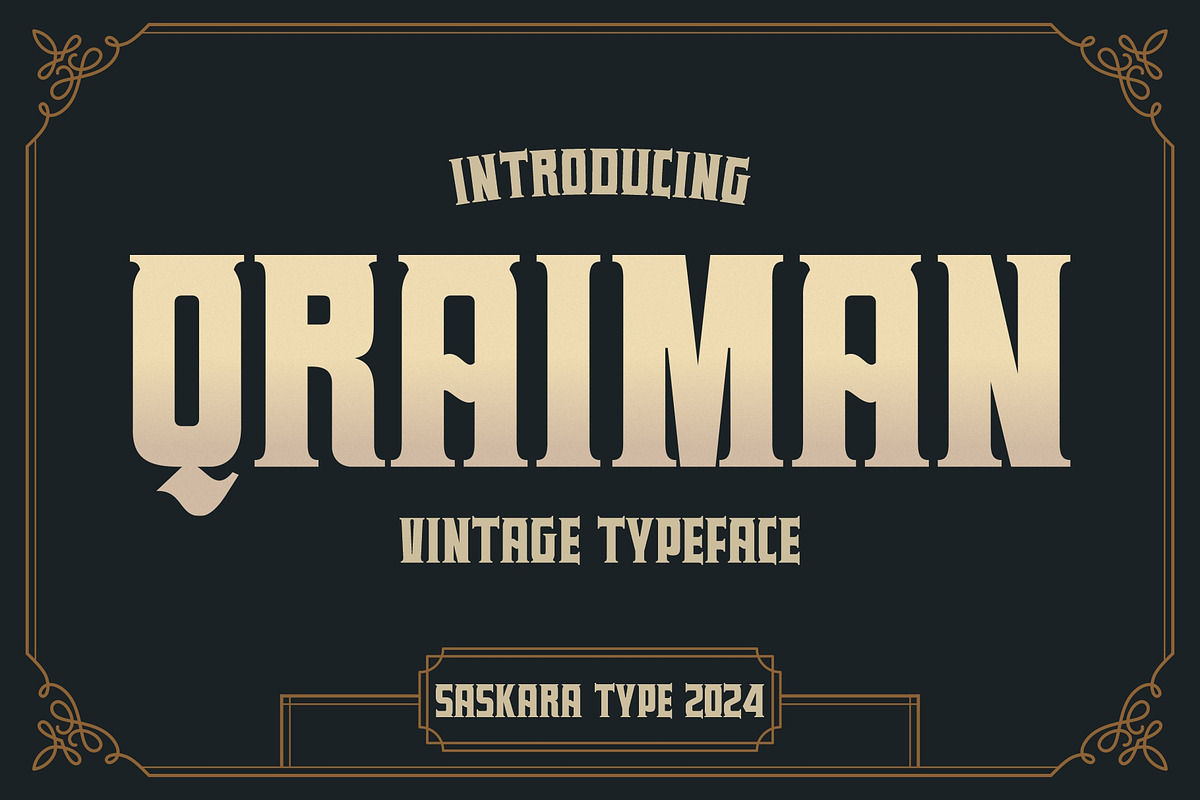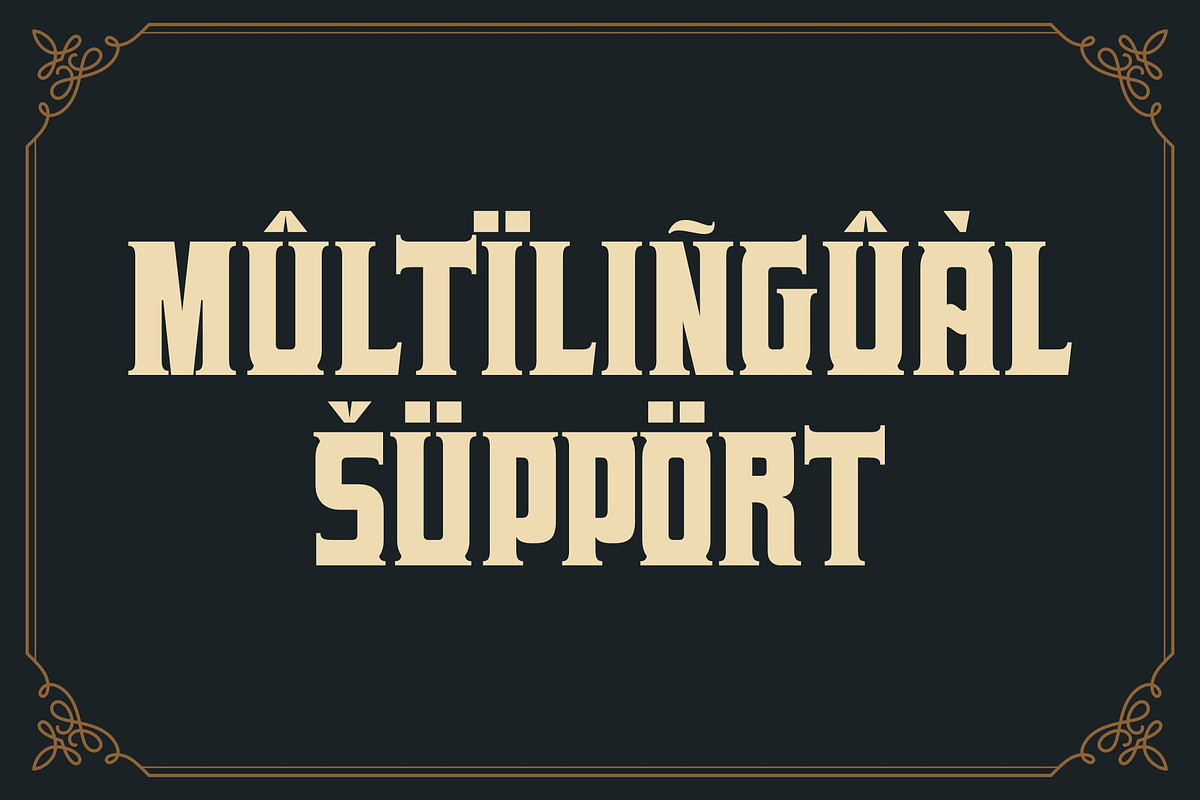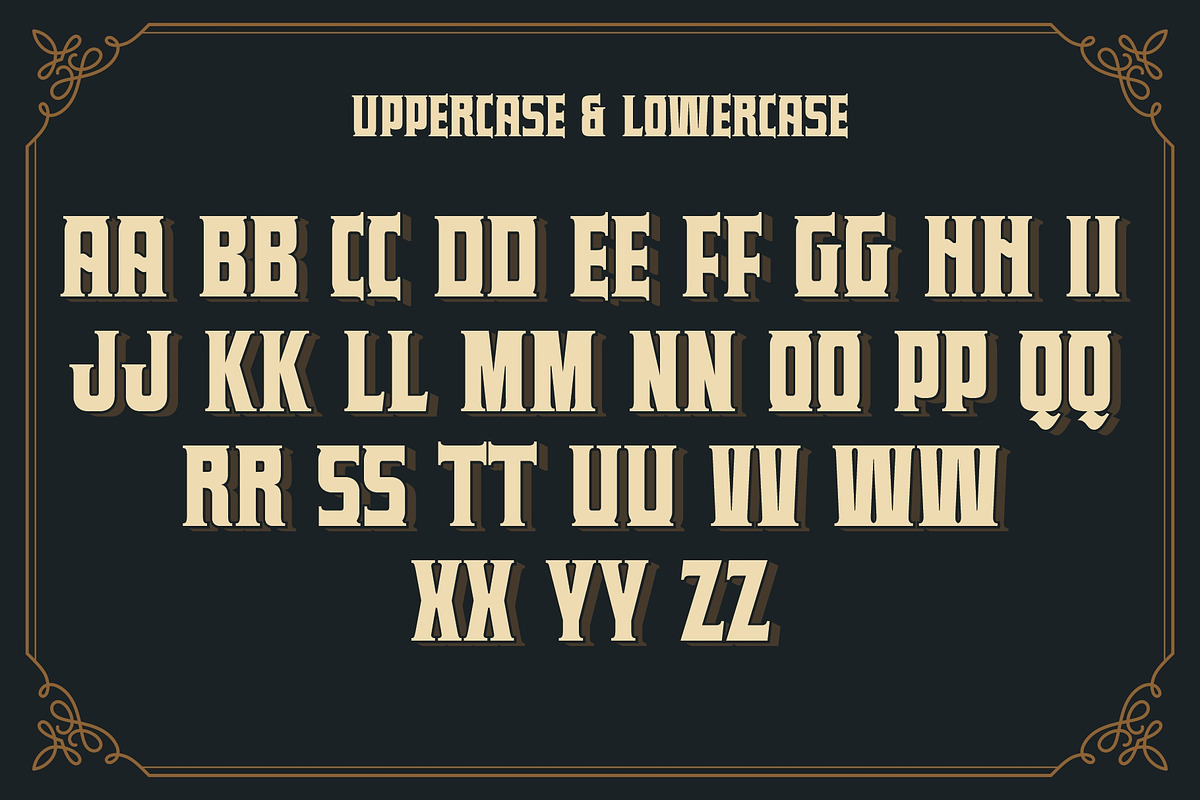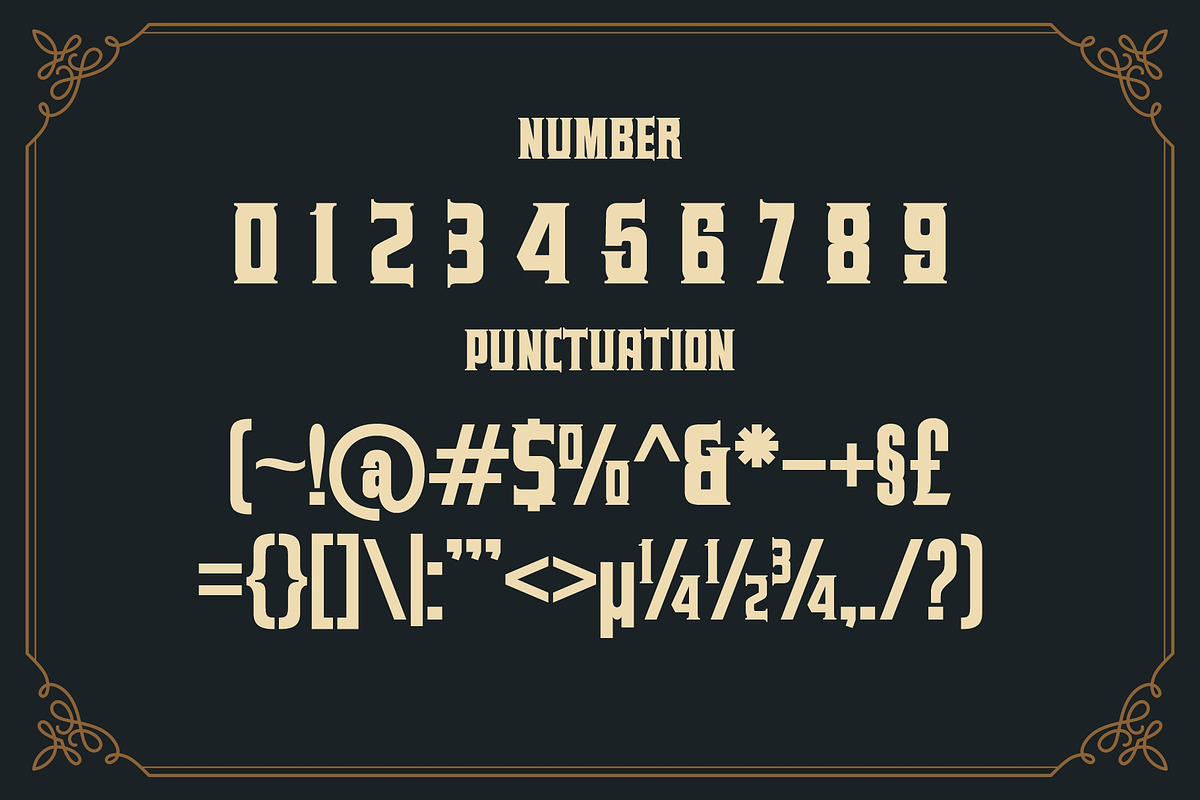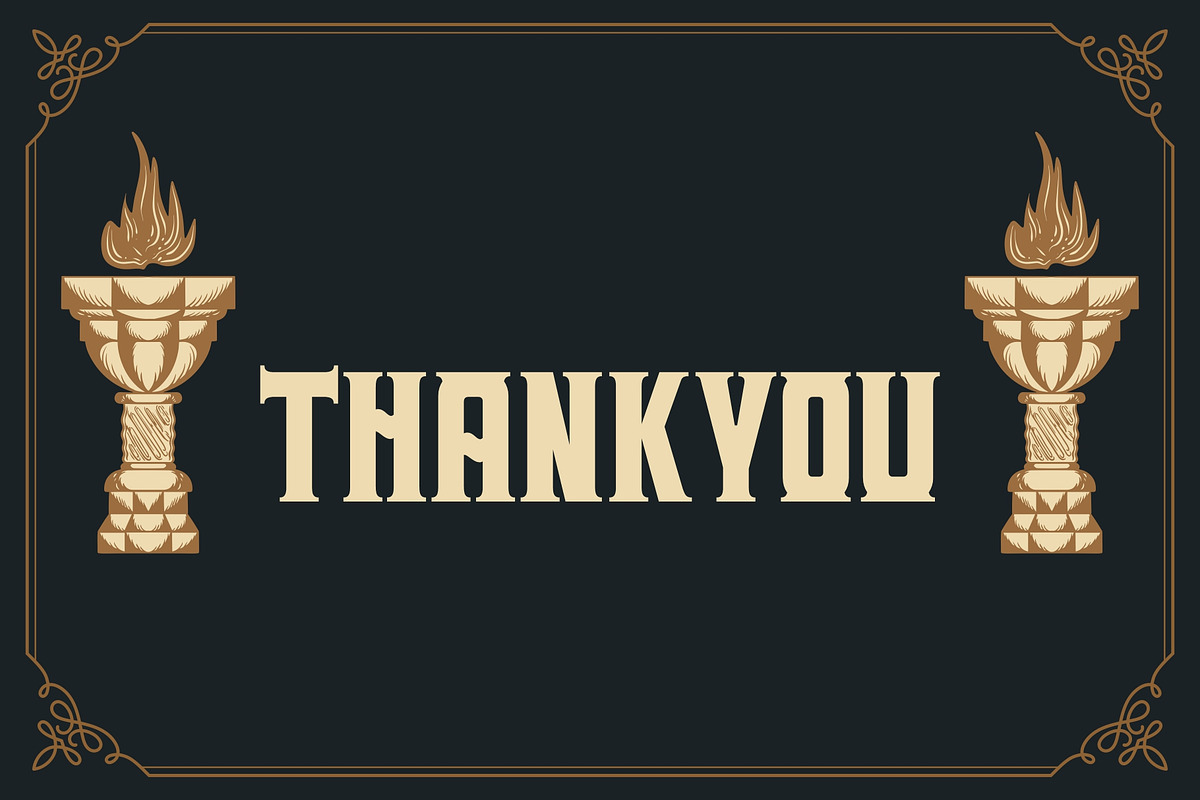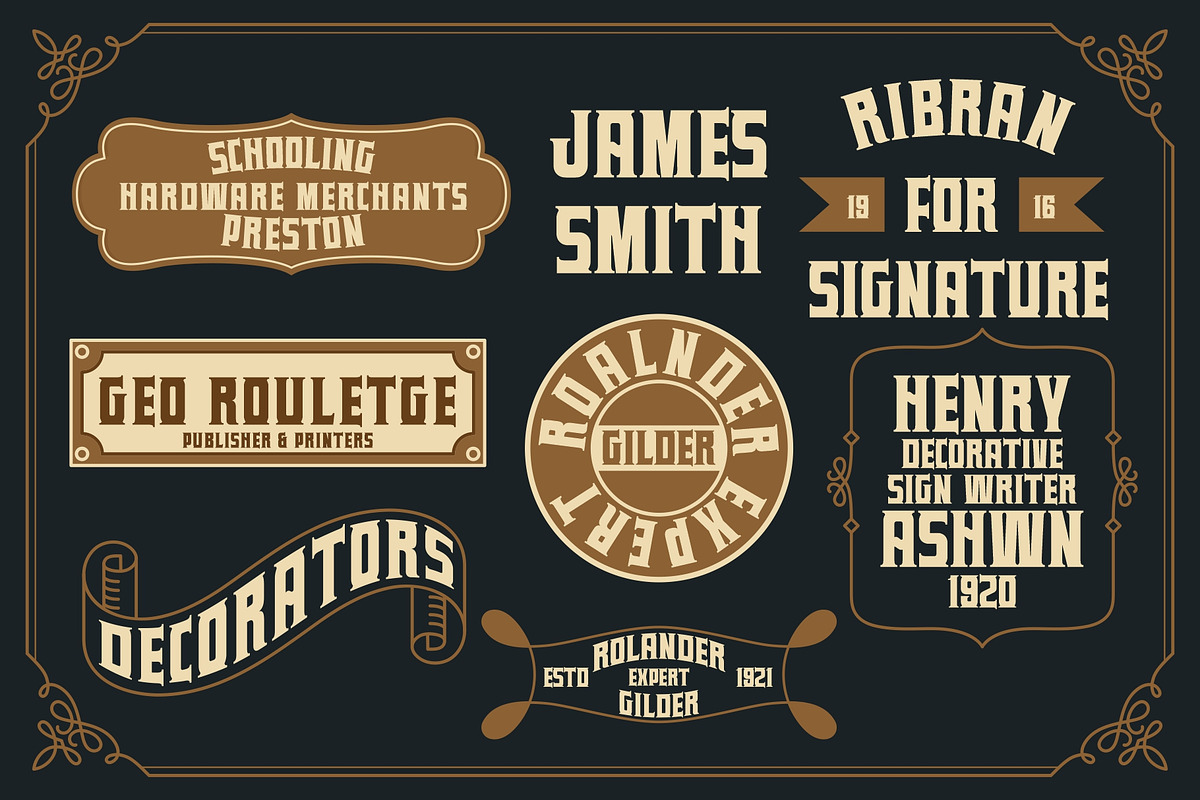
Qraiman
Qraiman is a vintage serif font, Inspired by old sign painting letters in a modern and dynamic way, great font for printing logos, labels, Illustrations, display fonts, Signage, Pubs, Tattoo Logos, Sign Painting, Handmade Brands, anything related to vintage style, etc.